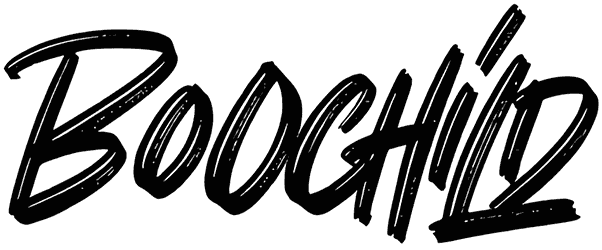
Boochild Font
Boochild has a different style than other script fonts, taking a more psychedelic approach with ribbons and dramatic glyphs. This brush font provides some general graphics in the format of two caps set that cover the lack of lowercase letters and some numbers.
This urban font blends well with the drawing elements, bringing you professional works that have a stylized style and are a great addition to any poster, advertisement, or logo looking to grab a place among the audience.